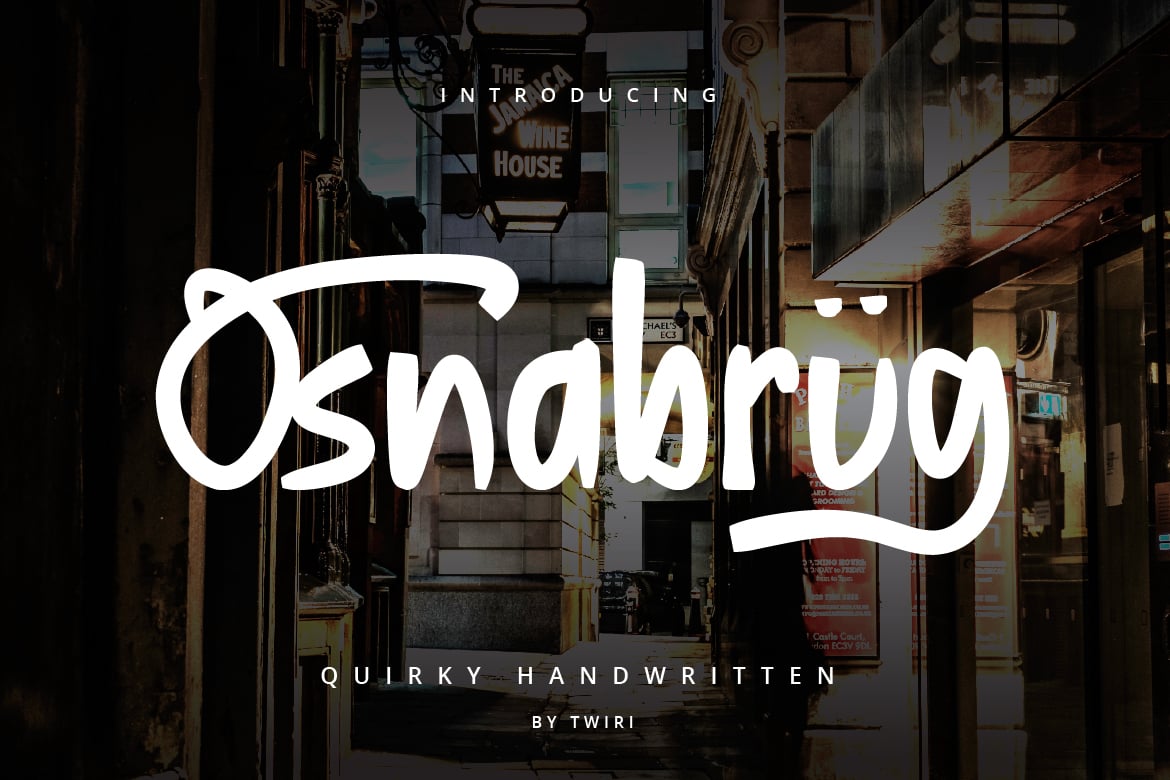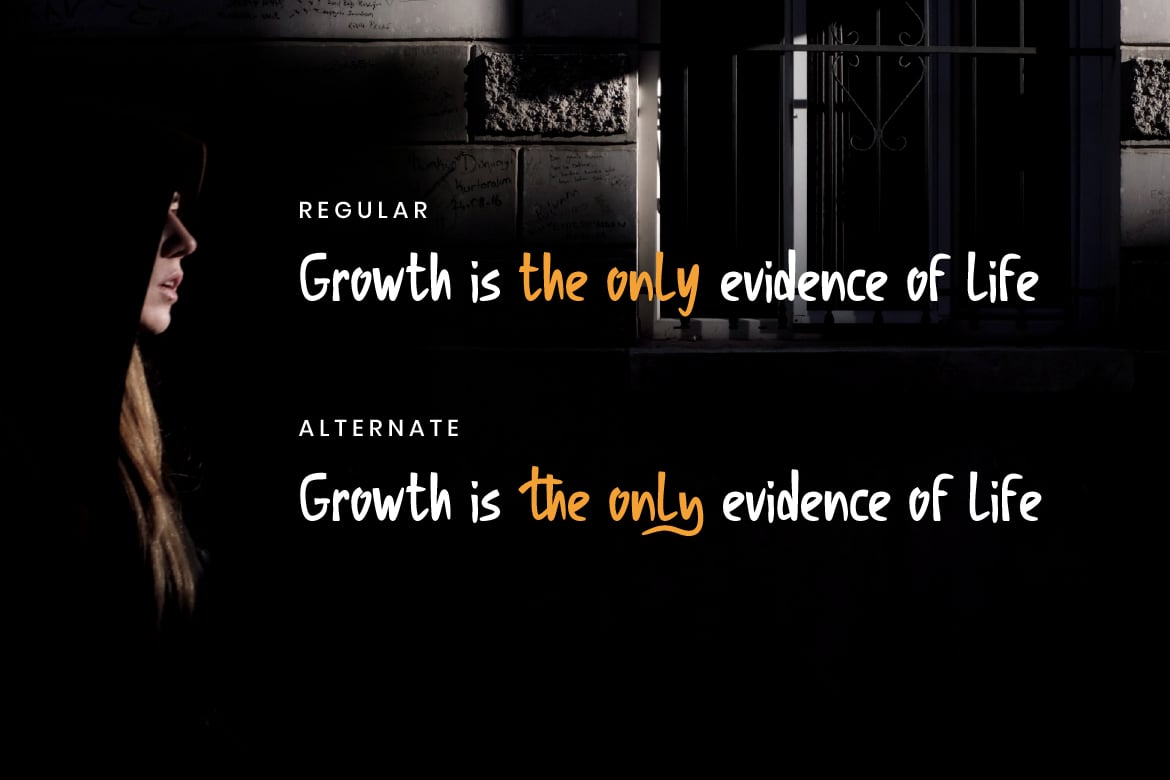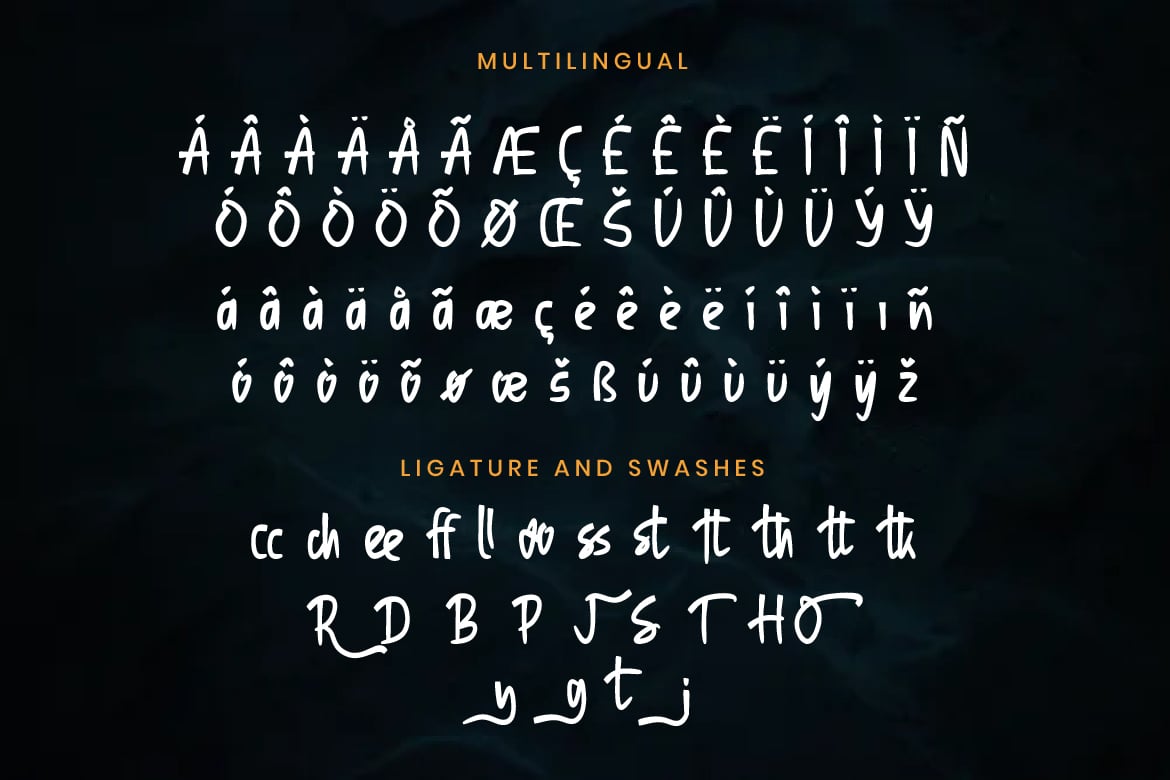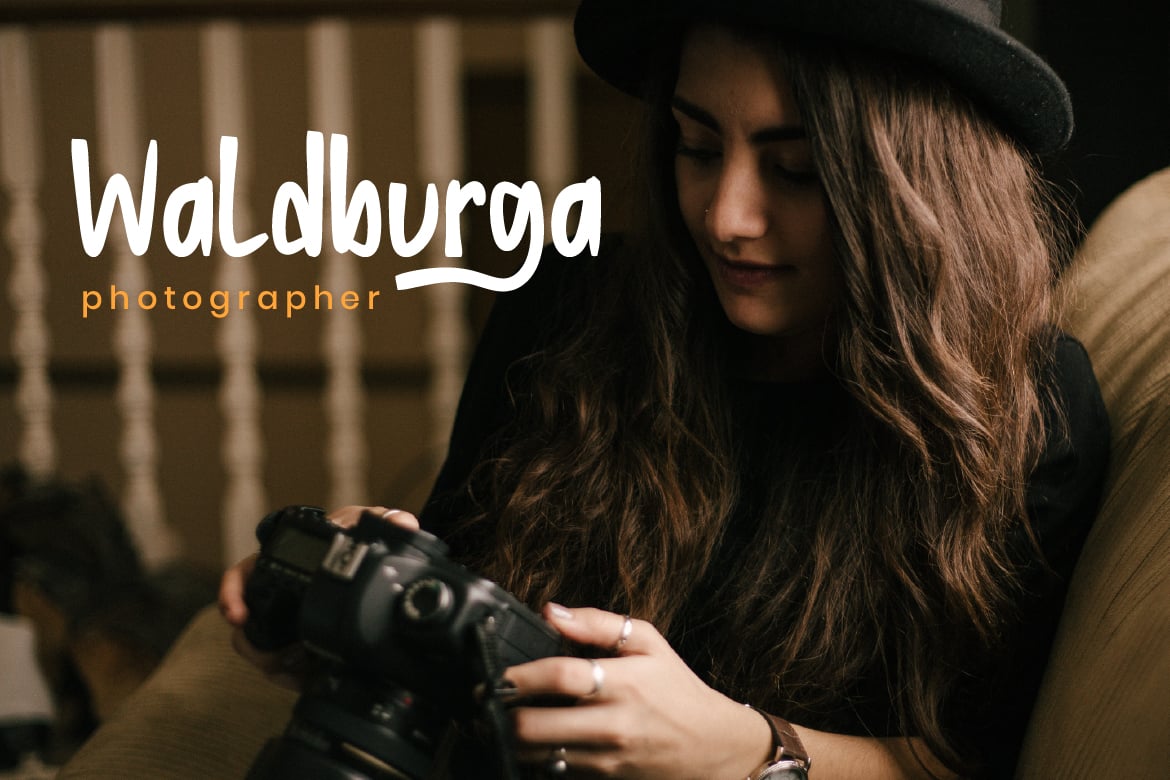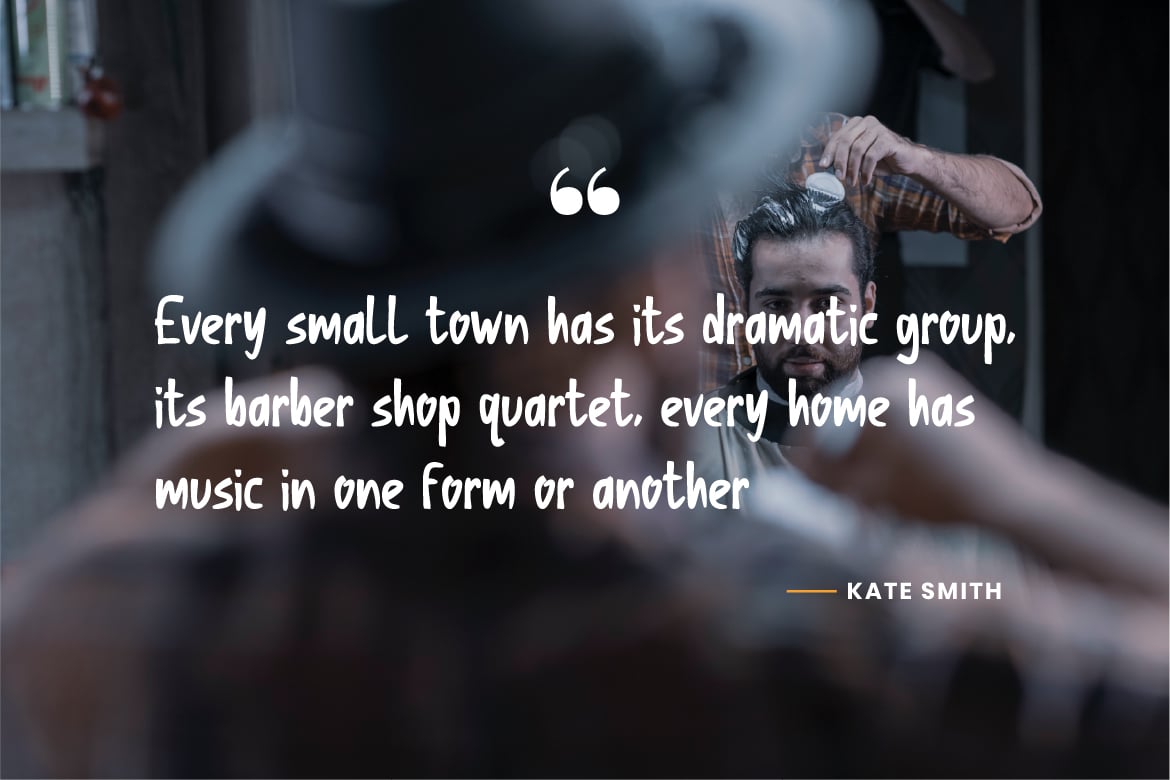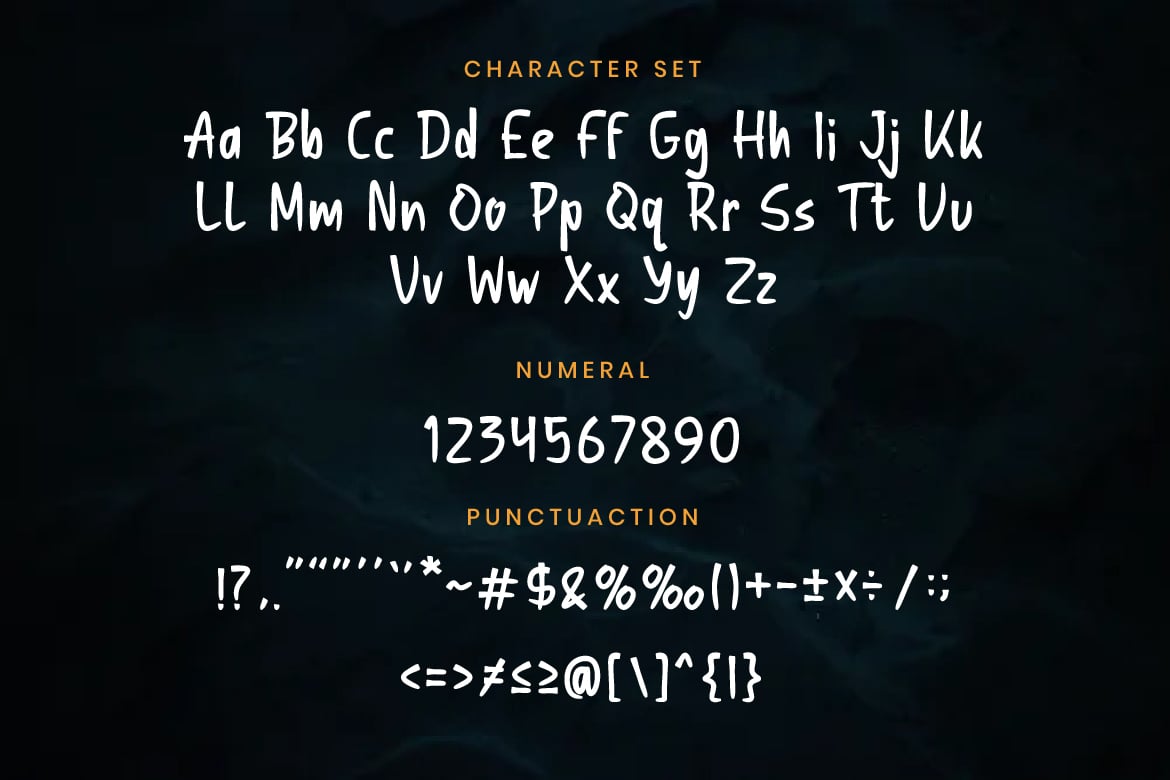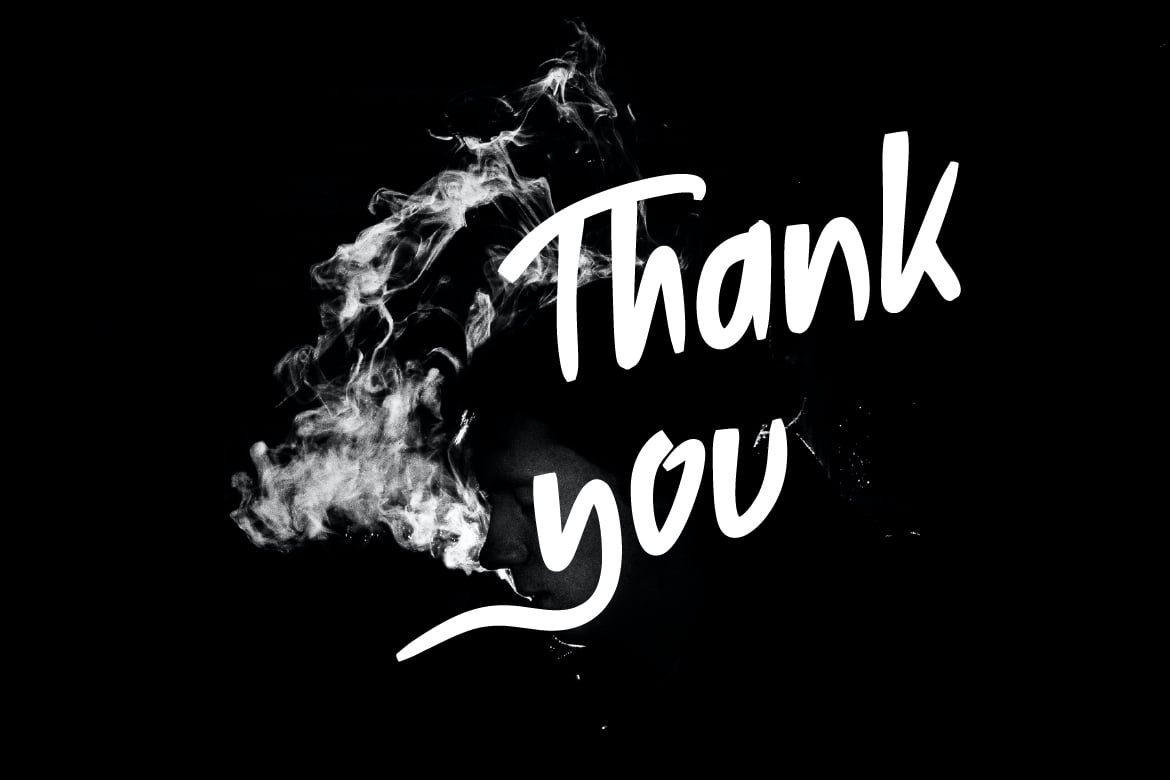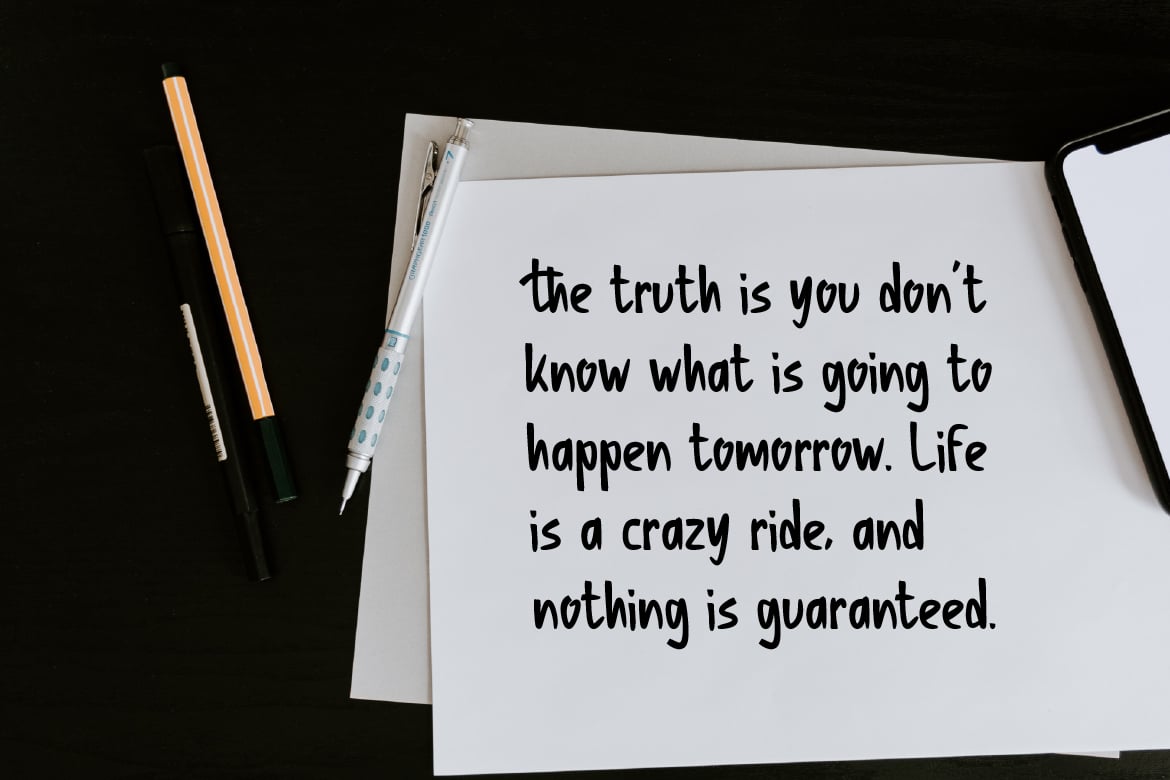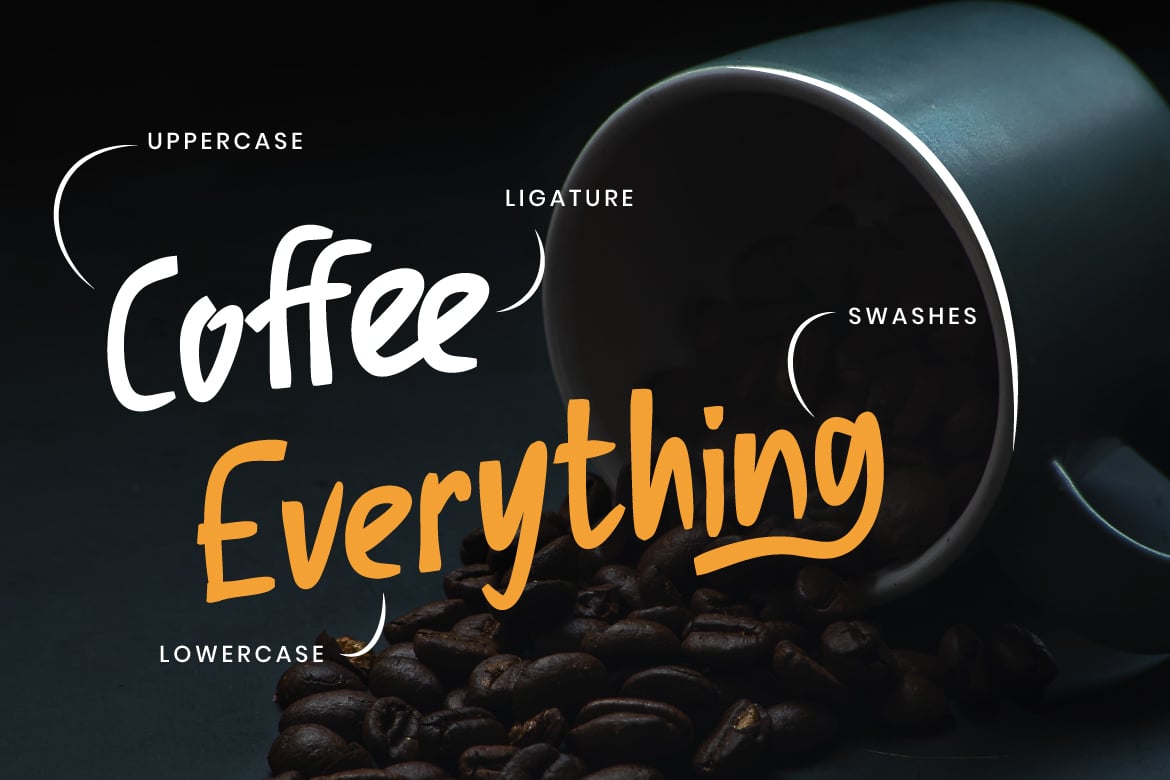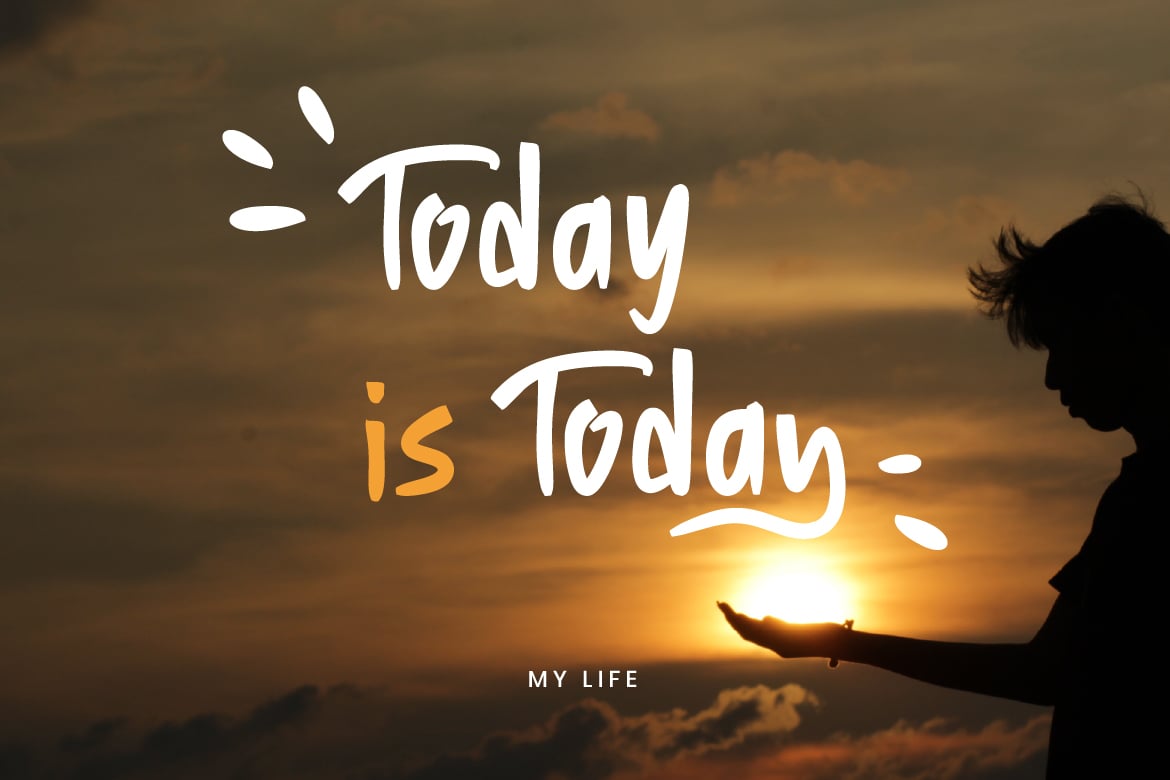
Osnabrug Font Quirky Handwritten
Osnabrug Font Quirky Handwritten is perfect for label, photography, watermark, invitation, stationery, branding projects, logo, wedding designs, social media posts, advertisements, product packaging, product designs, digital marketing, video.
Osnabrug fonts includes a complete set of uppercase and lowercase letters, as well as multi-language support, numbers, punctuation, ligatures